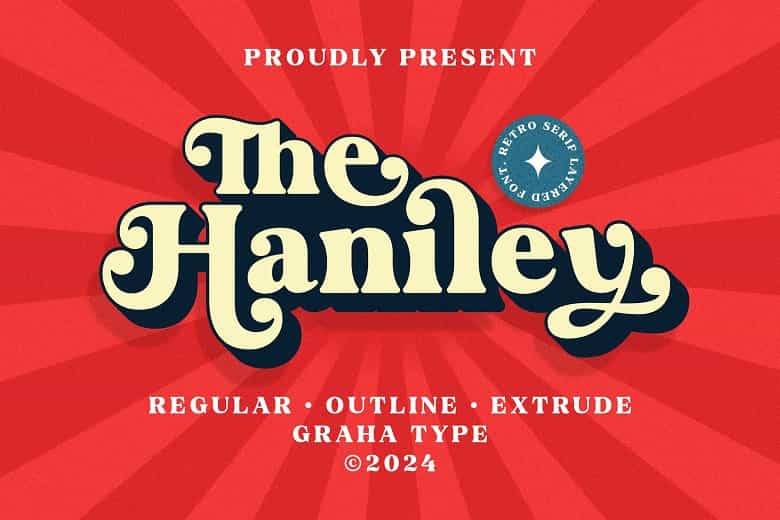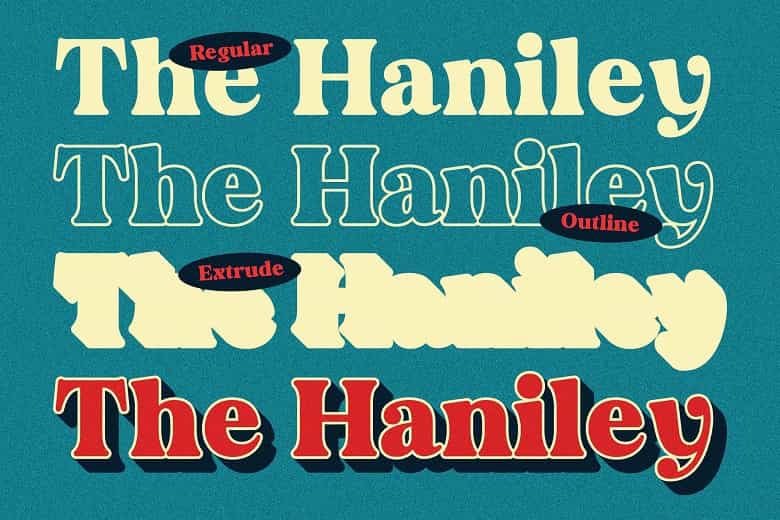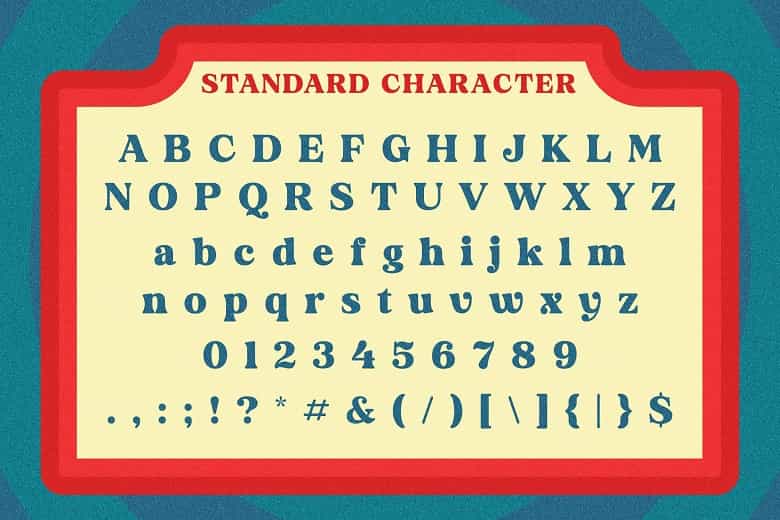
The Haniley is a modern serif font with retro style feel and look to it. This is great for logo, poster, branding, merchandise. This font will surely make your design stand out and therefore it is perfect for use in creating your designs.